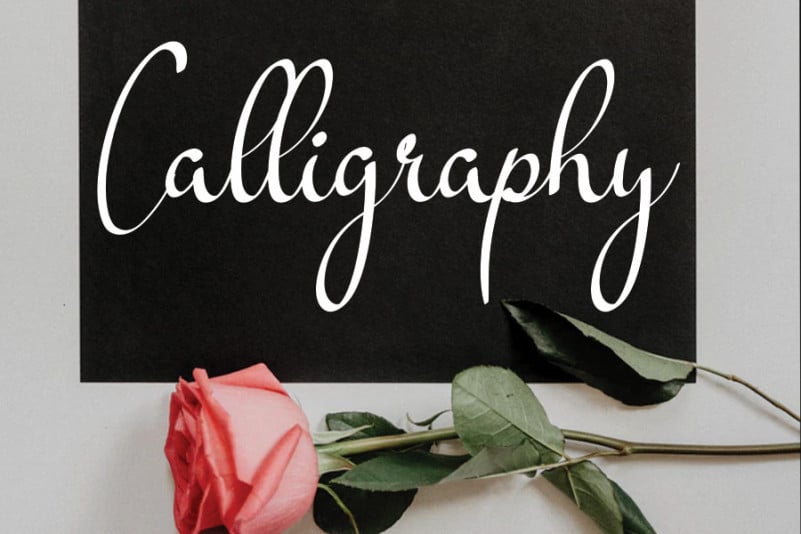
Gallmadi Calligraphy Font
Gallmadi Calligraphy Font simplifies elegance into one truly outstanding handwritten font. It maintains its classy calligraphic influences while feeling contemporary and fresh. This versatility will appeal to a wide range of crafty ideas, from letterheads and titles, to stationery.
The latest style letters are perfect for wall displays, wedding invitations, social media post logos, advertisements, product packaging, product designs, labels, photography, watermarks, invitations, stationery, and any project that requires taste handwriting.